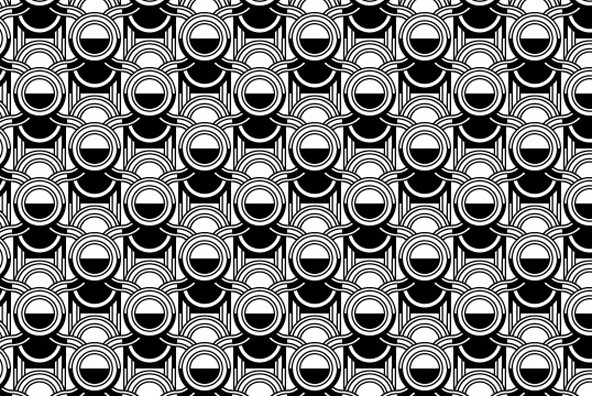
FR Minta Two
FR Minta - the pattern font for the playful. With any element of FR Minta Two you can create pattern - casual graphics could be built also. There are over 250 elements in this font. Possibilities are limitless. Try it. Play it.